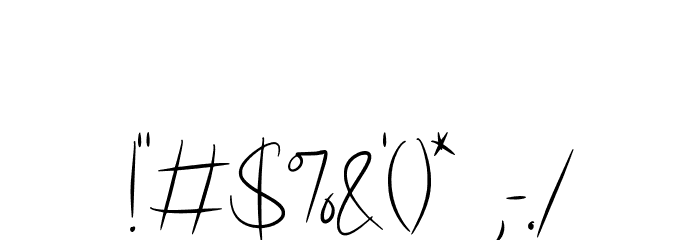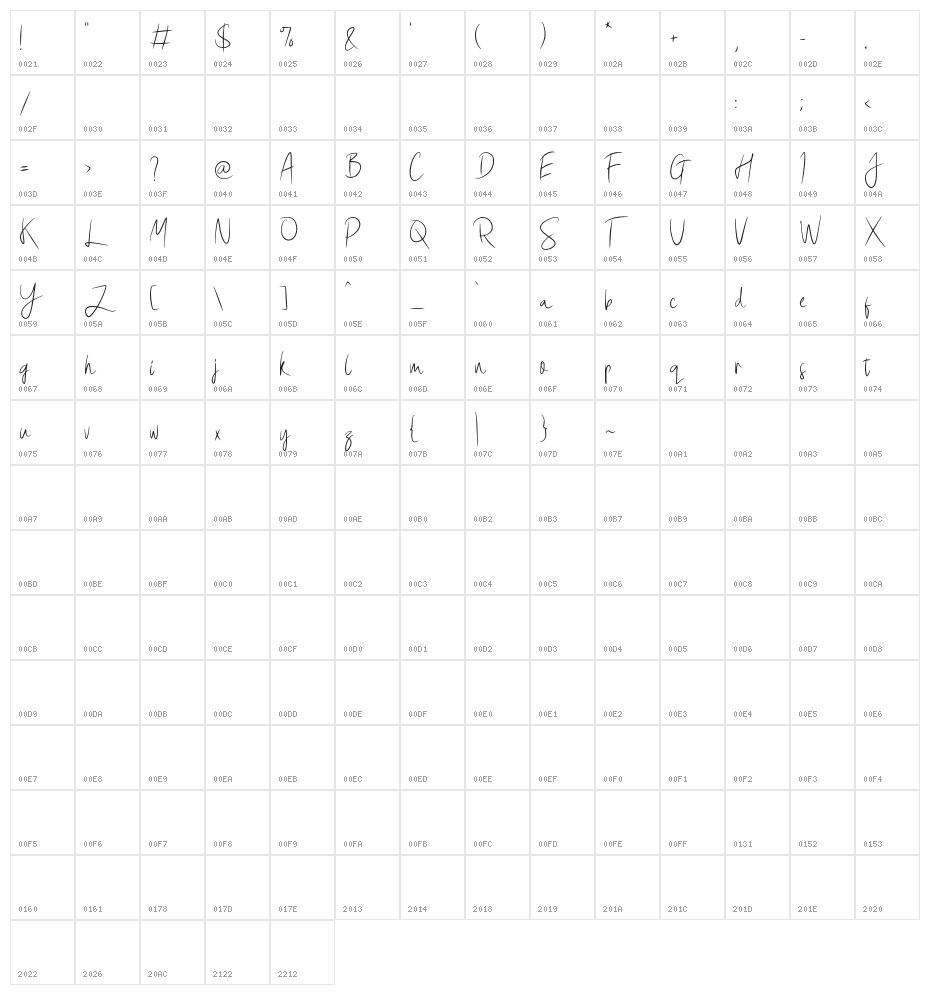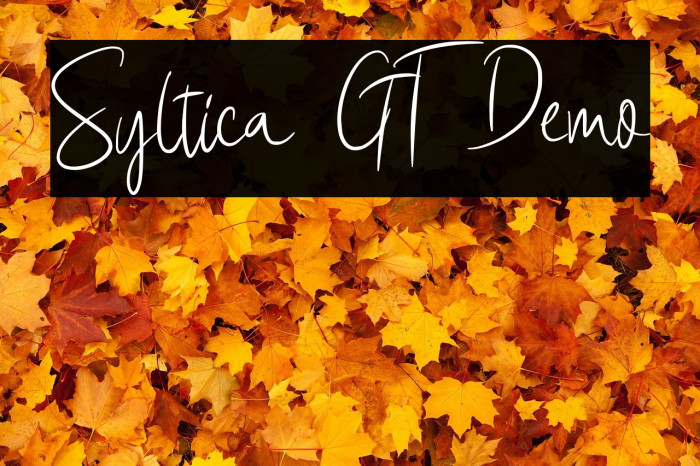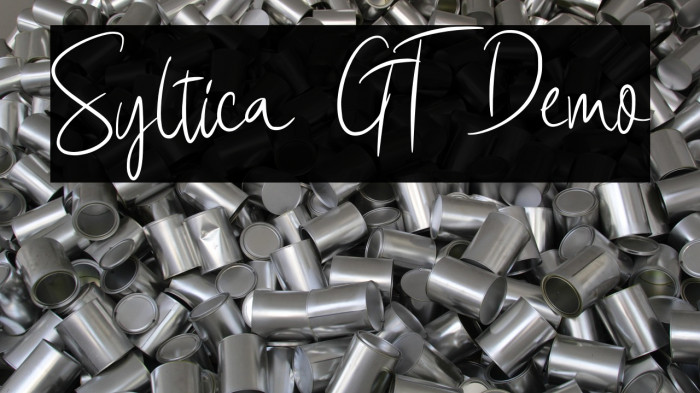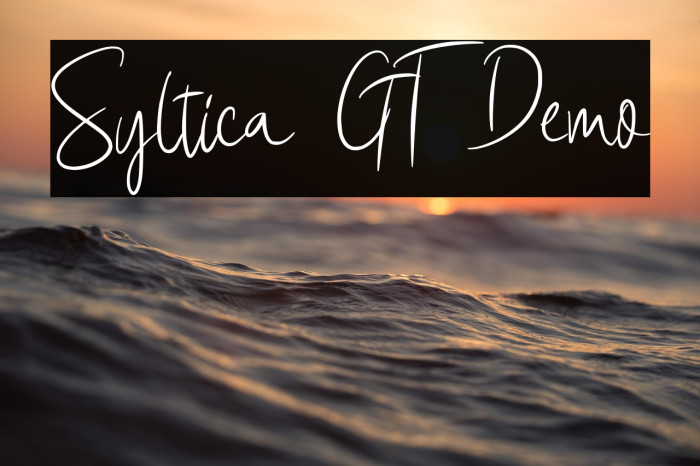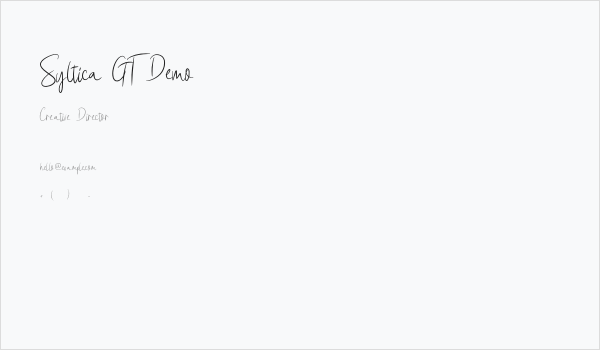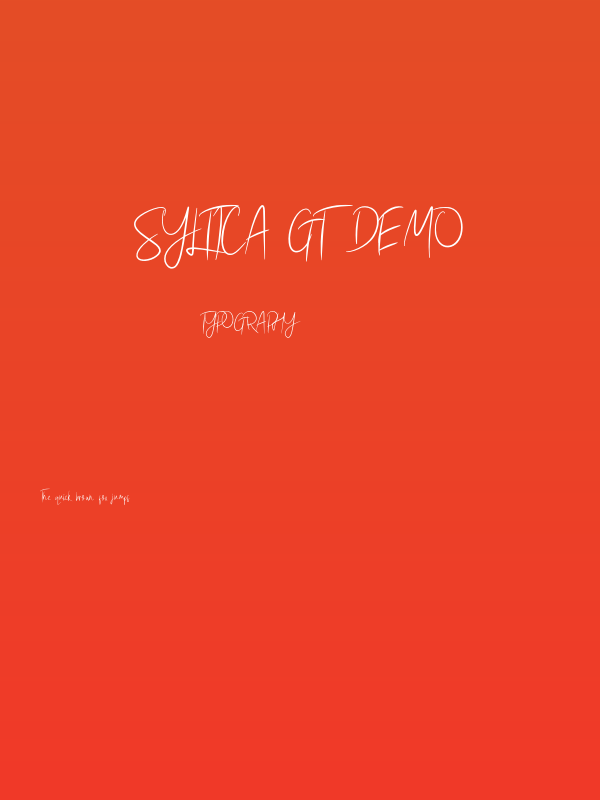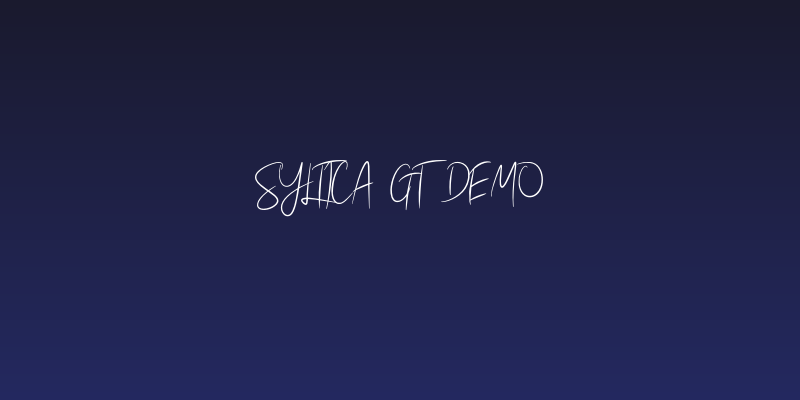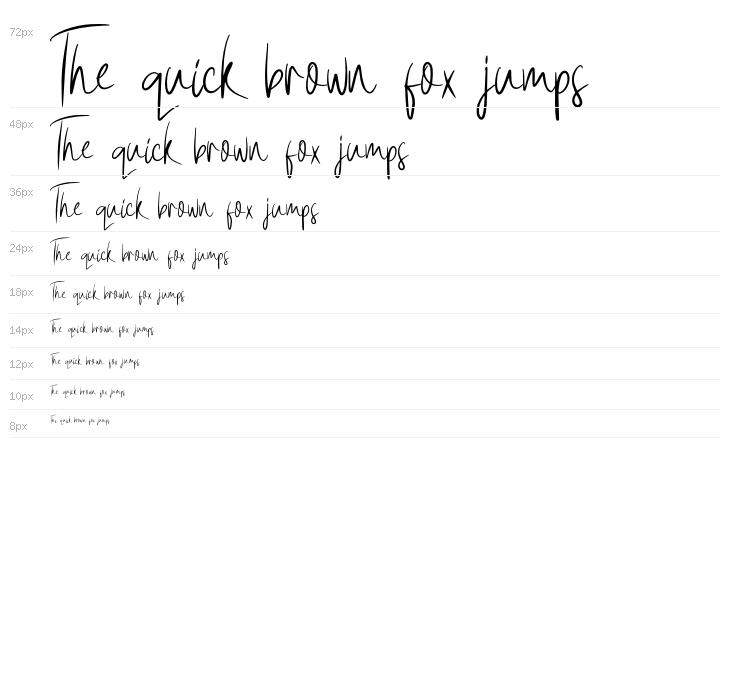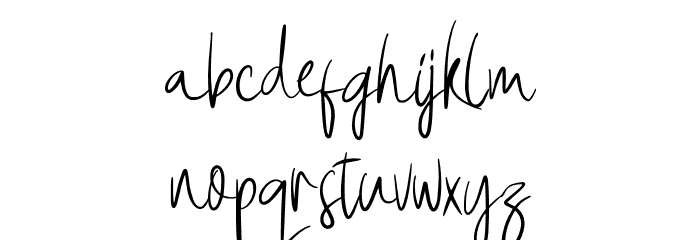
Syltica GT Demo Font
Syltica GT Demo Description
This font exhibits a lively and dynamic handwritten style, characterized by its elongated and flowing letterforms. The uppercase letters are particularly tall and slender, with a playful, almost whimsical quality. The lowercase letters maintain a consistent fluidity, enhancing the font's overall casual and approachable feel. The strokes are thin, with a medium contrast that adds to the font's legibility while preserving its artistic flair. Special characters and numbers are seamlessly integrated, maintaining the font's cohesive aesthetic. This font is ideal for projects that require a personal touch, such as invitations, greeting cards, or creative branding.